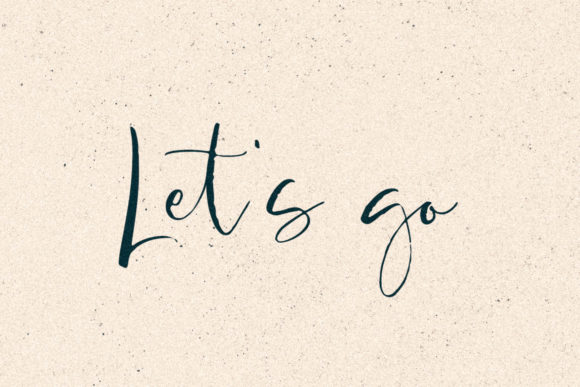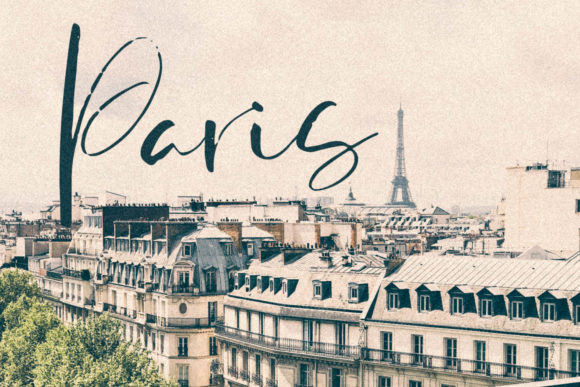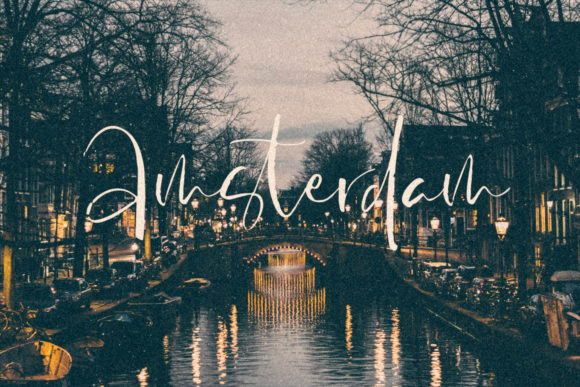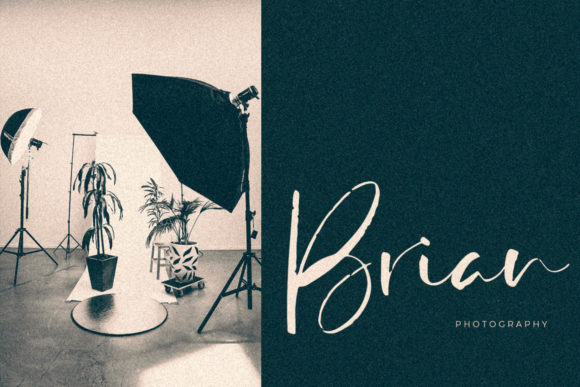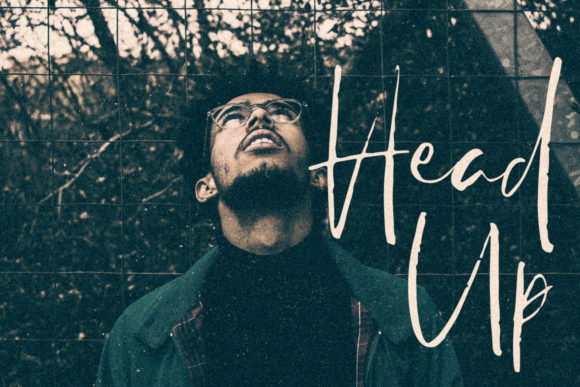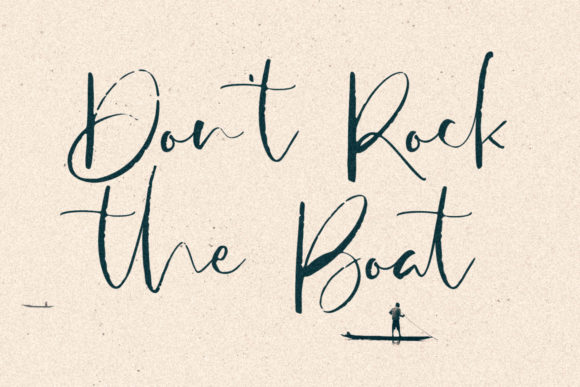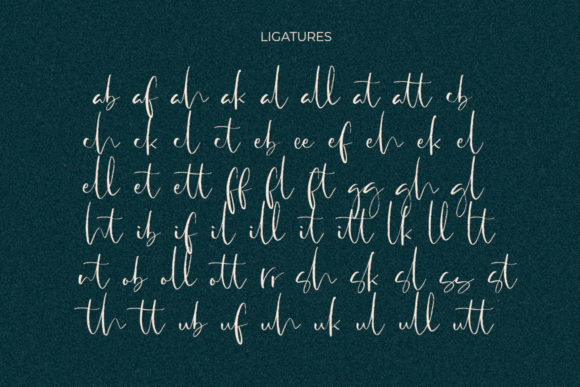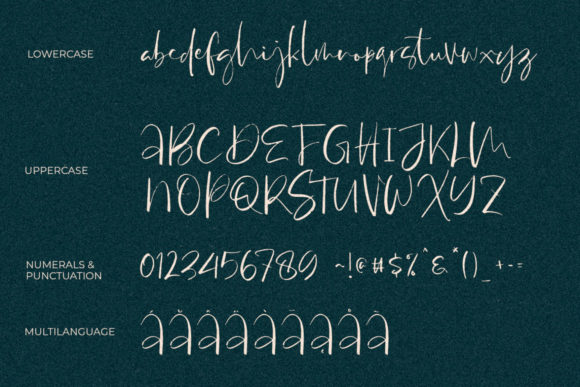
Antosan Font
About Antosan Font
Antosan is a bold and beautiful handwritten font with a contemporary feel. It will add a whimsical charm to any design project.